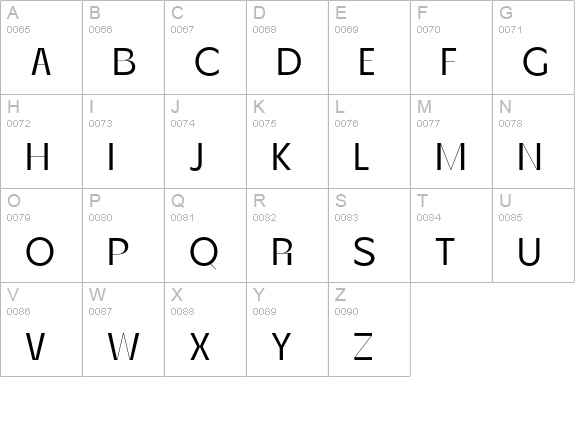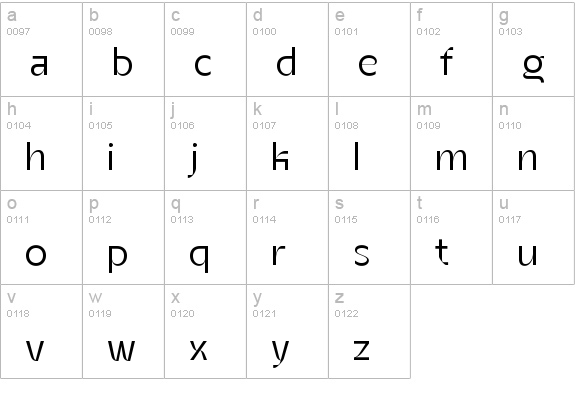
Berghan font is a modern and stylish typeface that exudes sophistication and elegance. Its sleek lines and contemporary design make it perfect for a wide range of design projects, from branding to editorial work. The letters are beautifully crafted with a perfect balance of curves and angles, giving the font a unique and distinctive appearance.